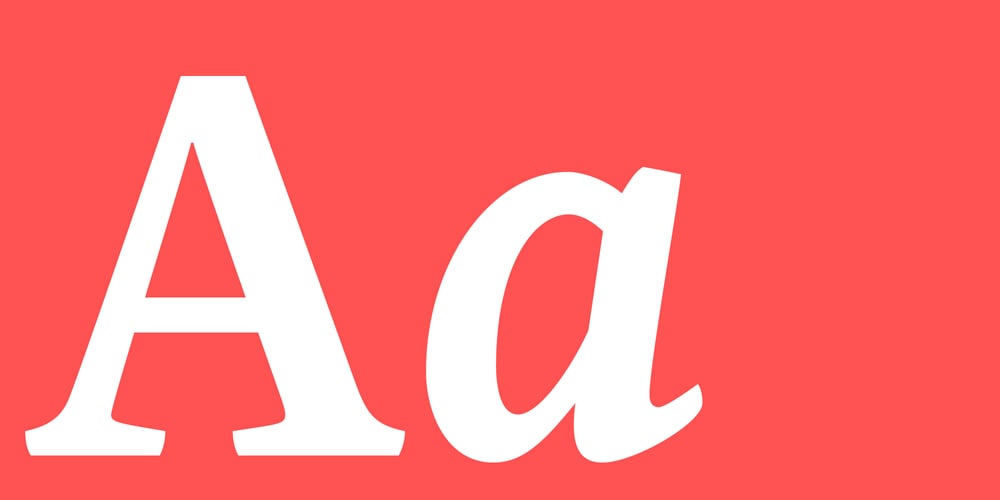
Sirba
Sirba font
Sirba Font Family was designed by Nicolien van der Keur and published by TypeTogether. Sirba contains 10 styles and family package options. Sirba, a serif typeface family with a friendly personality, was conceived especially for the demands in complex text environments like dictionaries, academic texts, annual reports, novels and magazines. It has many design features that were particularly designed with Sirba’s purpose in mind. Because of its open counters, the large x-height and its short ascenders and descenders, this typeface conveys a pleasant reading experience and high legibility even in small sizes. Sirba is a low-contrast typeface, contemporary but with a classical touch, revealing its beauty in design details, such as the asymmetrical bottom serifs, curved bracketing and calligraphically reminiscent terminals. Furthermore, the capitals appear integrated into the text, thanks to the low cap height, and the constant width of all tabular numbers between the weights make this typeface very usable in annual reports and tables. Sirba is available in the four classic styles plus a special heavy (Black) version, which is particular in that its proportions are designed so the counters remain big enough when set in very small text sizes. This means that Sirba Black’s spacing and letter width are rather generous in comparison to other typefaces of that colour. This ensures excellent legibility. During the design of the typeface family, much attention was given to the italic and regular as counterparts of each other. The italic distinguishes itself just enough while reading without creating strange spots within the text when looking at the text as a whole.